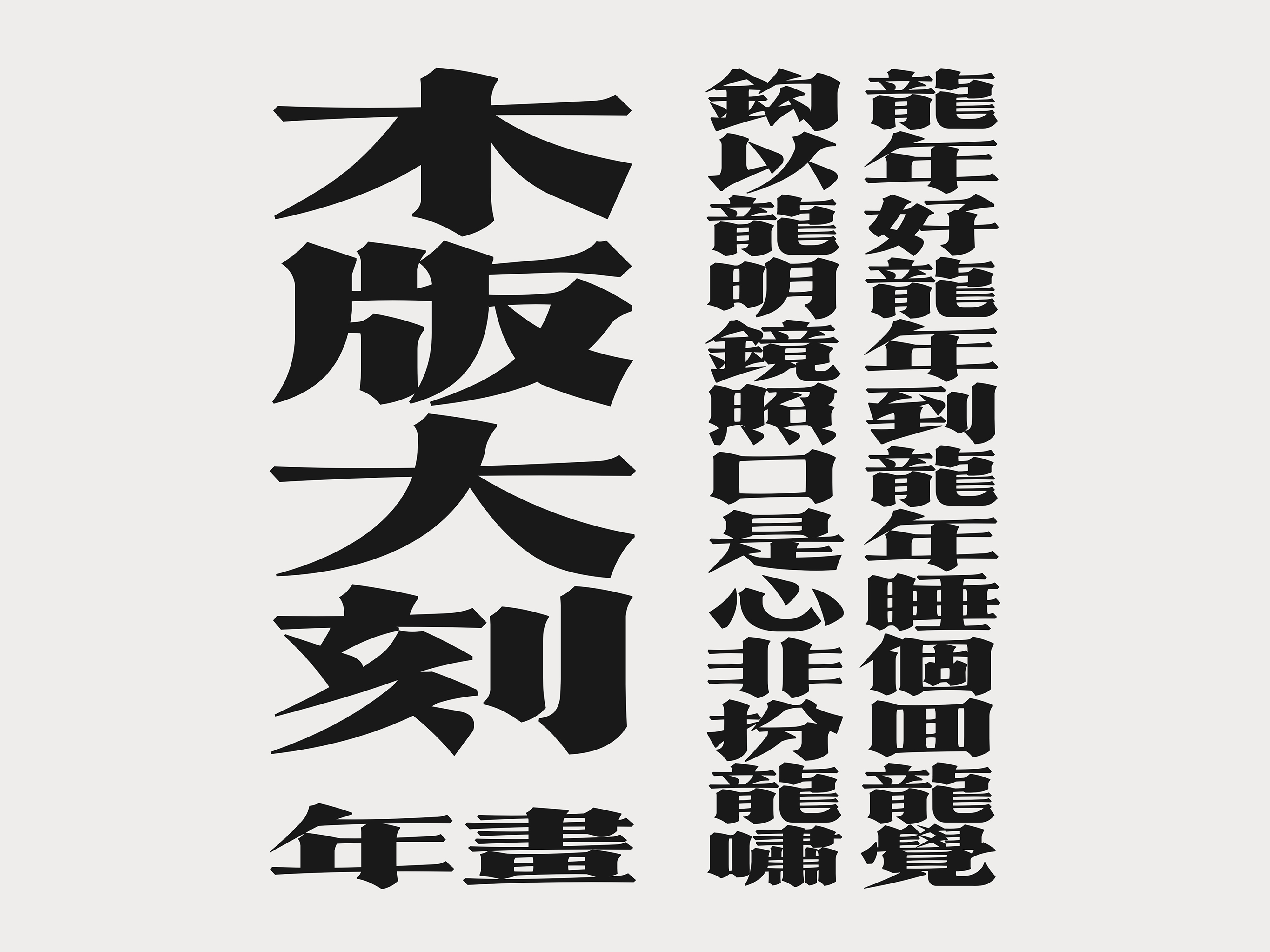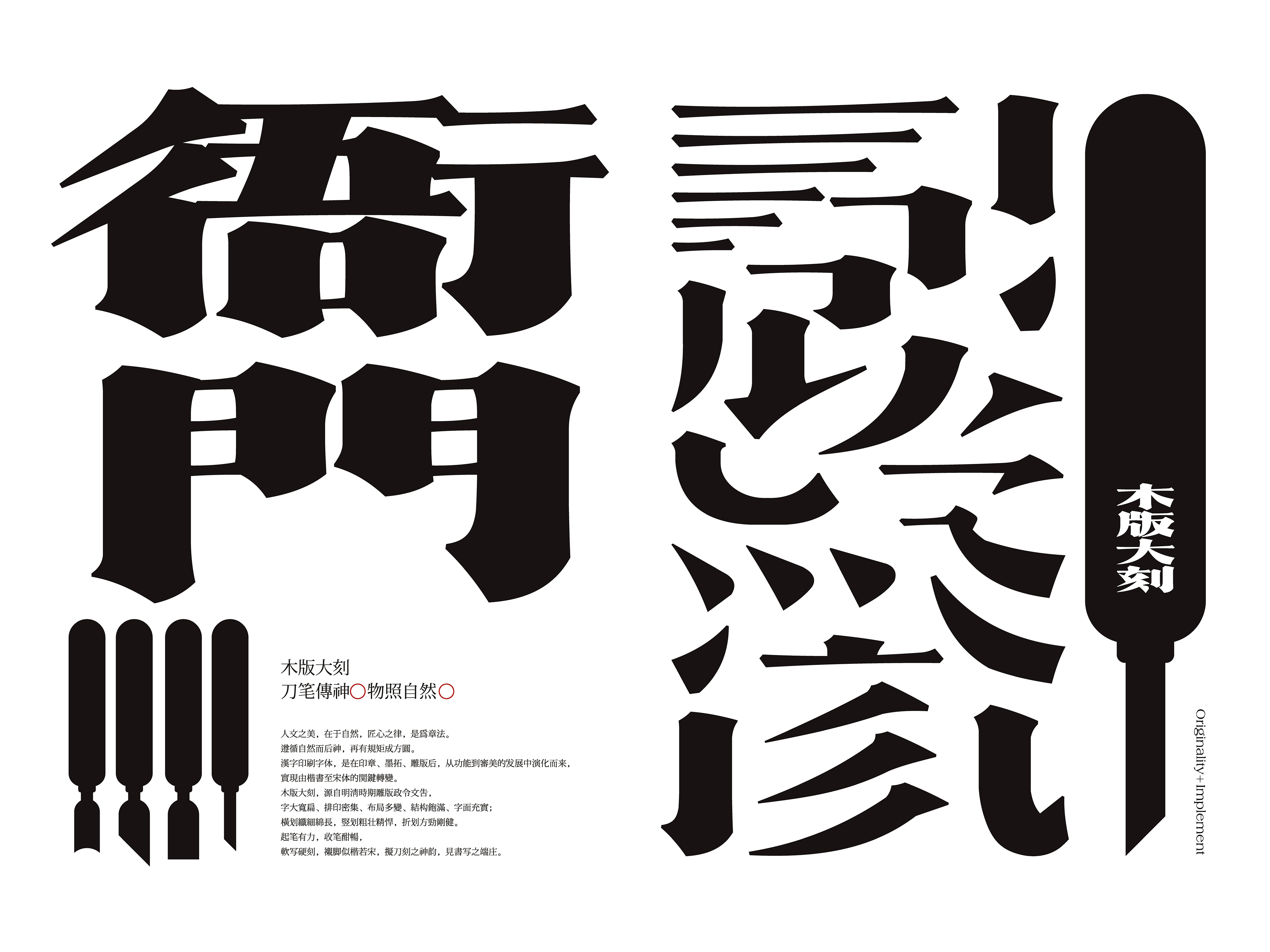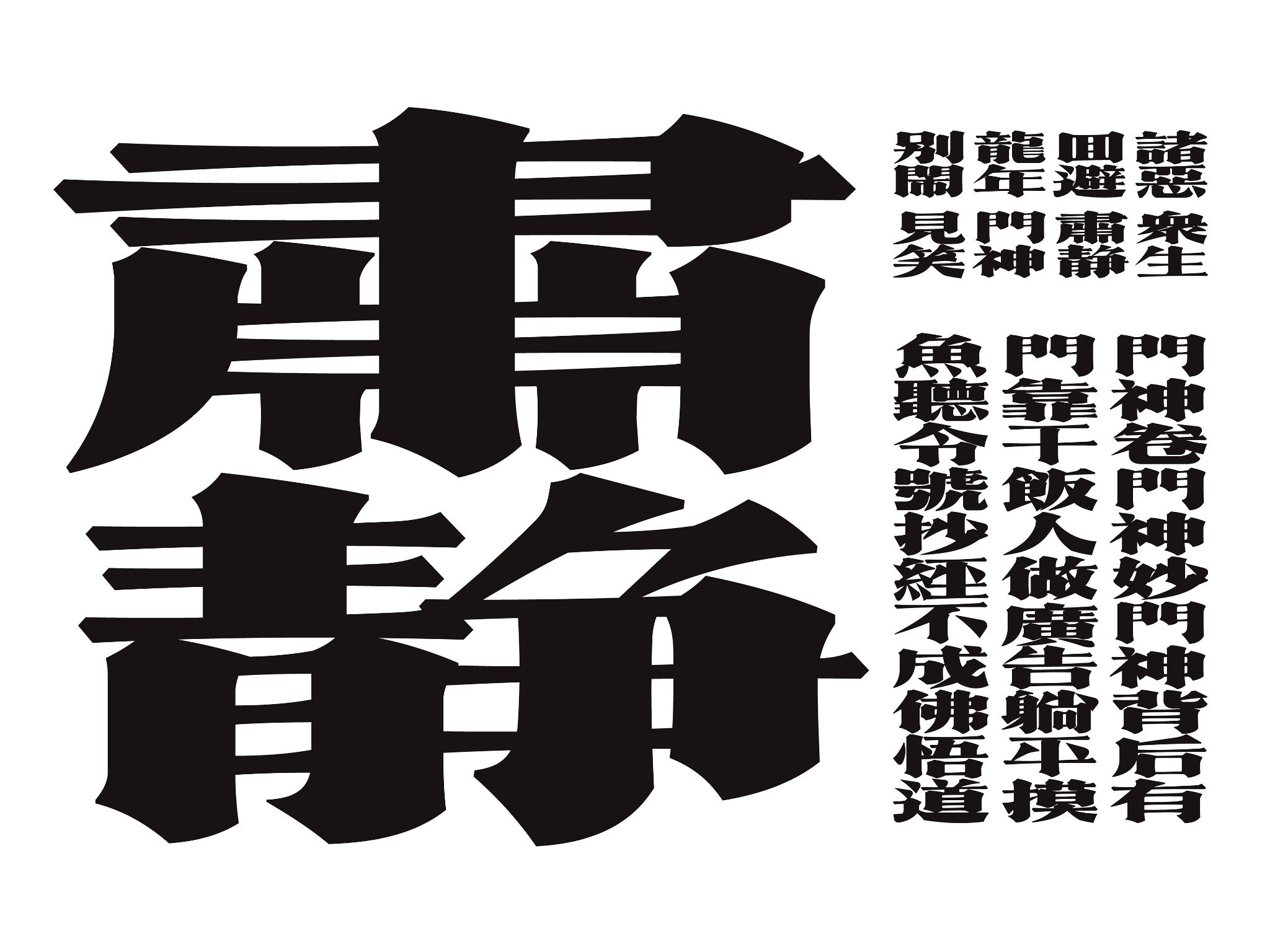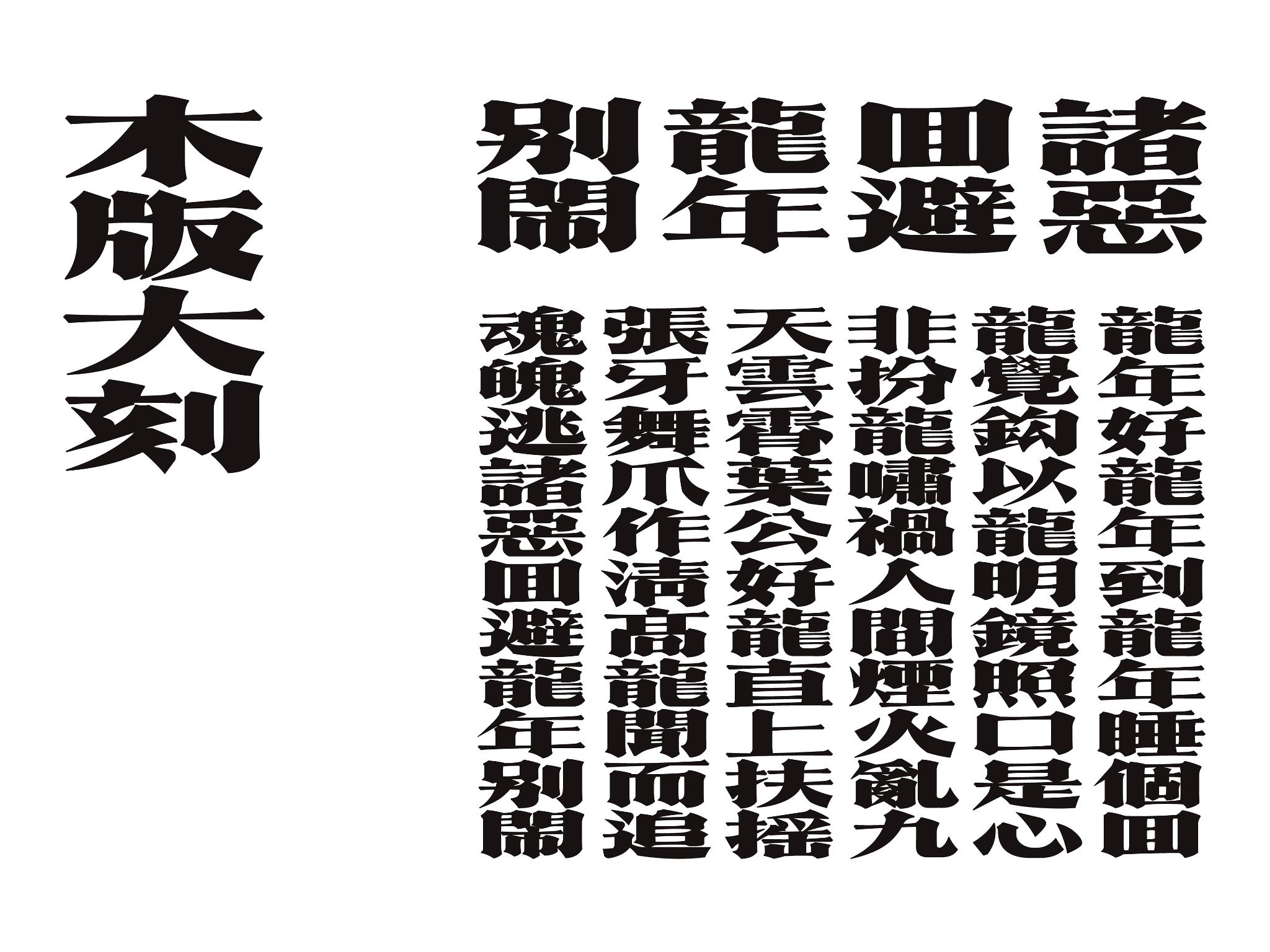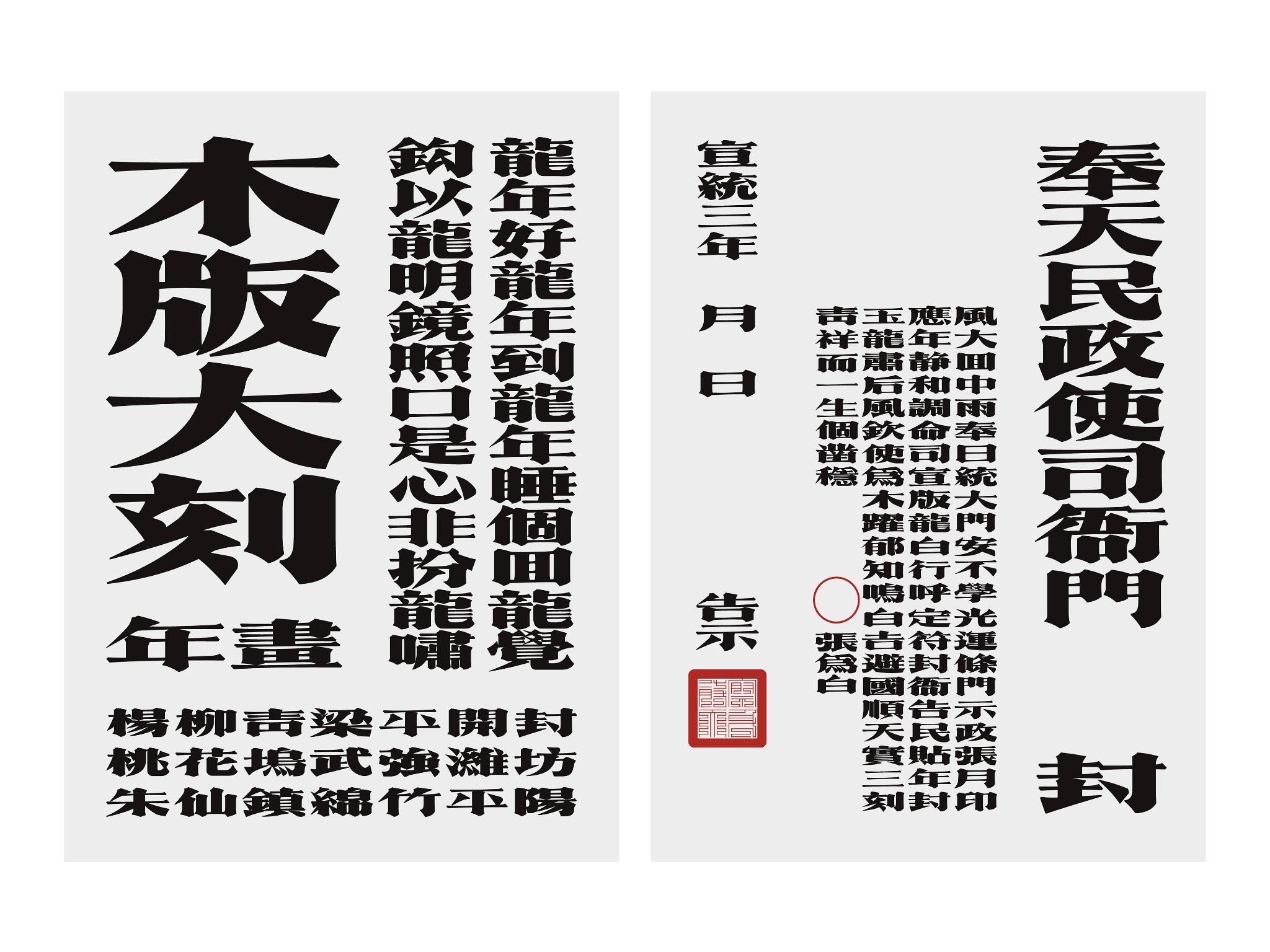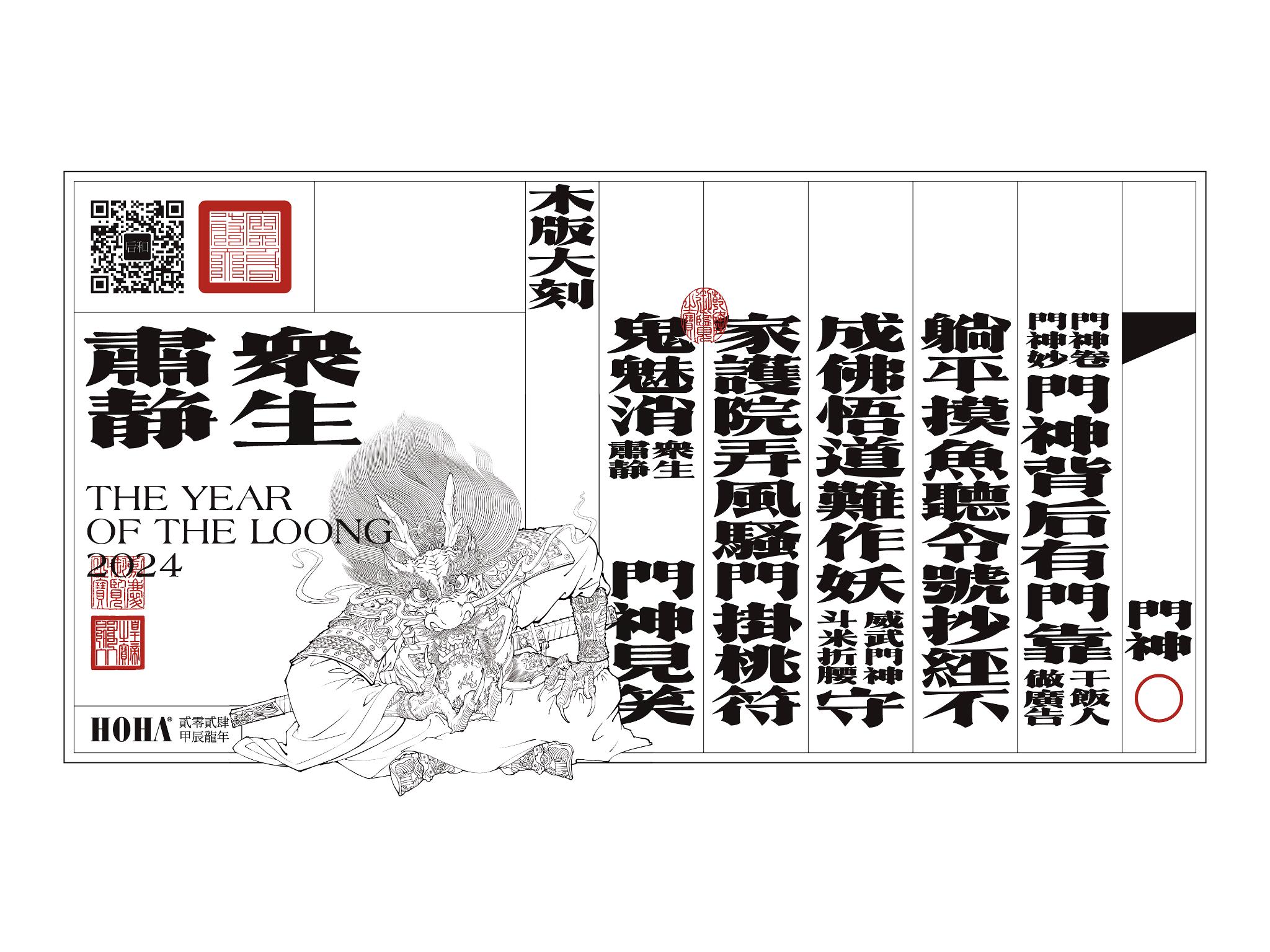
Greatly carved fonts on wooden versions
Typeface
Greatly carved fonts on wooden versions originating from the Ming and Qing dynasties woodblock government decrees and proclamations, has large and flat characters, dense typesetting, diverse layout, full structure, and substantial writing; The horizontal strokes are slender and long, the vertical strokes are sturdy and vigorous, and the folding strokes are strong and robust. The pen is powerful at the beginning and smooth at the end, with soft and hard writing. The lining of the feet resembles regular script like Song, and the charm of the sword carving is evident in the dignified writing.